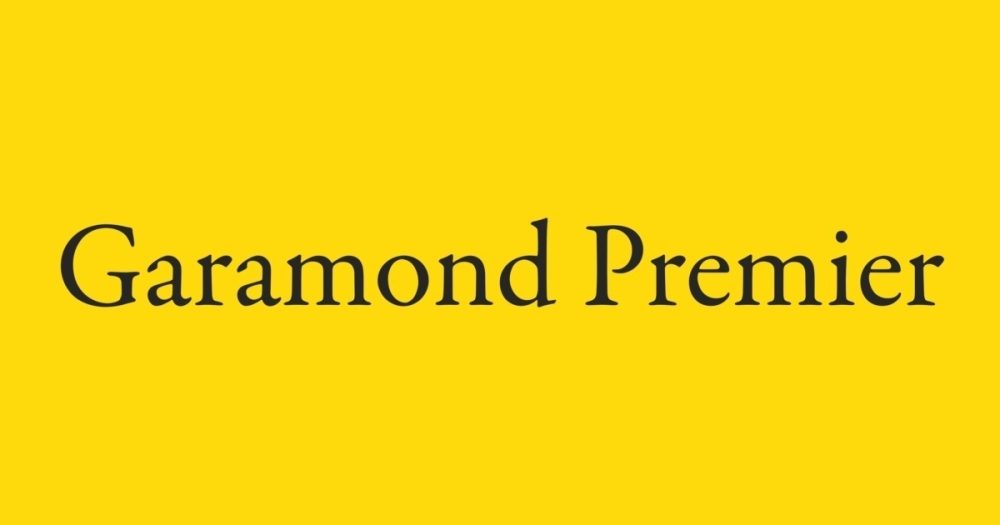
Robert Slimbach designed Garamond Premier for Adobe in 2005, drawing on the 16th-century originals of Claude Garamond by way of Robert Granjon’s italics — a meticulous, historically-informed revival built as an optical size system with distinct display, text, and caption cuts, 34 styles in total. Garamond-style serifs have carried a reputation for elegant, trustworthy readability for literal centuries, which is why the shape still shows up constantly in book publishing and premium branding. Licensing the original today runs $35 for a single style up to $299 for the complete family. These five Google Fonts borrow the same old-style serif warmth for free. If you’ve been searching for free alternatives to garamond, this list is built exactly for that.
EB Garamond
A direct digital revival of Claude Garamont’s own 16th-century originals — the same source material Slimbach drew on for Garamond Premier — making EB Garamond the most historically direct free match on this list.
Cormorant Garamond
Built with more contrast and delicacy than EB Garamond, Cormorant Garamond suits a headline or title that wants old-style Garamond proportions with more editorial flair.
Crimson Text
Modeled on old-style book typefaces predating the 20th century, Crimson Text was built specifically for extended reading — a natural fit for the kind of book-length text Garamond-style serifs are so often chosen for.
PT Serif
A humanist serif with generous counters built for extended reading, PT Serif offers Garamond-style warmth with slightly sturdier, more modern proportions.
Spectral
Commissioned specifically for on-screen reading, Spectral brings old-style serif warmth to digital editorial work where a print-optimized Garamond revival can sometimes feel too delicate.
Quick Comparison
| Font | Style | Best For |
|---|---|---|
| EB Garamond | Old-style Garamond revival | Closest free match |
| Cormorant Garamond | Delicate high-contrast serif | Elegant display text |
| Crimson Text | Old-style serif | Long-form reading |
| PT Serif | Reading-optimized serif | Trustworthy body text |
| Spectral | Screen-optimized serif | Digital editorial content |
Want something more unique?
Frequently Asked Questions
Are all the ‘Garamond’ fonts basically the same?
No — ‘Garamond’ describes a broad style tradition going back to Claude Garamont’s 16th-century originals, and dozens of independent revivals (EB Garamond, Adobe Garamond, Garamond Premier, ITC Garamond among them) each interpret those proportions somewhat differently.
What’s the biggest visual difference between Garamond Premier and EB Garamond?
Garamond Premier’s optical-size system gives it subtly different letter proportions depending on the size it’s used at, a refinement EB Garamond (built as a single cut) doesn’t replicate — most readers won’t notice the difference outside of side-by-side comparison.